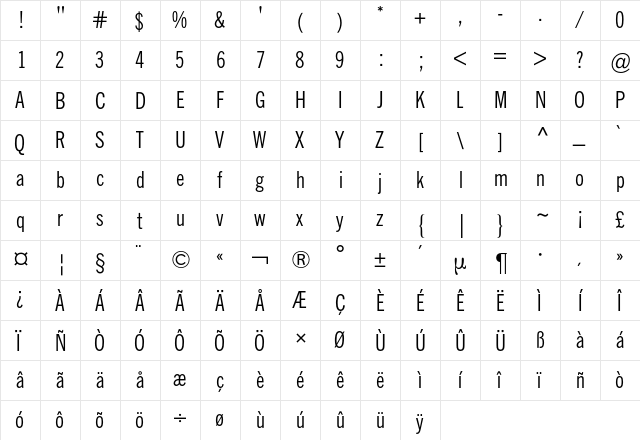
NewsGothicCondensedBQ Regular
Design Context for NewsGothicCondensedBQ Typeface
NewsGothicCondensedBQ has the quiet confidence of well-executed sans-serif typography: versatile, unobtrusive, and dependable at any size. Its narrow stance lets it pack a punch even in space-constrained designs.
Font Pairing: Works well alongside a characterful serif or display font that can carry the expressive load while NewsGothicCondensedBQ handles the functional copy.
Pro Tip: Try NewsGothicCondensedBQ in all-caps with moderate tracking for navigation and label copy — it performs well in systematic UI contexts.